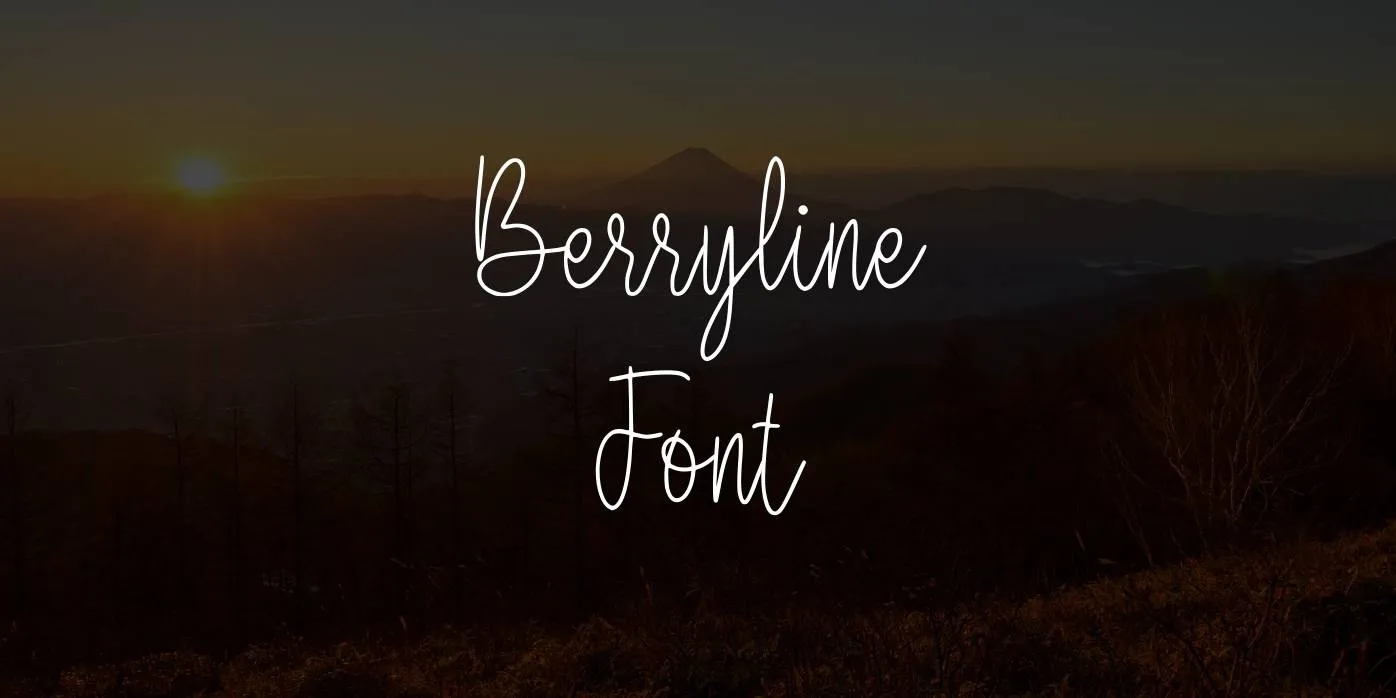
Berryline Font
Berryline Font is a script typeface created in 2019 by Jesse Ragan. It has unique, handcrafted letterforms. The font includes regular and bold weights, as well as support for Latin, Cyrillic, and Greek languages. Berryline Font was inspired by vintage sign painting and hand-lettering.
The goal was to create a typeface that had the same handmade feel, but with a modern twist. This font is also very well-known due to its copy-paste and pairing function. The result is a font that is both stylish and unique. The Font family includes regular and bold weights, as well as support for Latin, Cyrillic, and Greek languages.